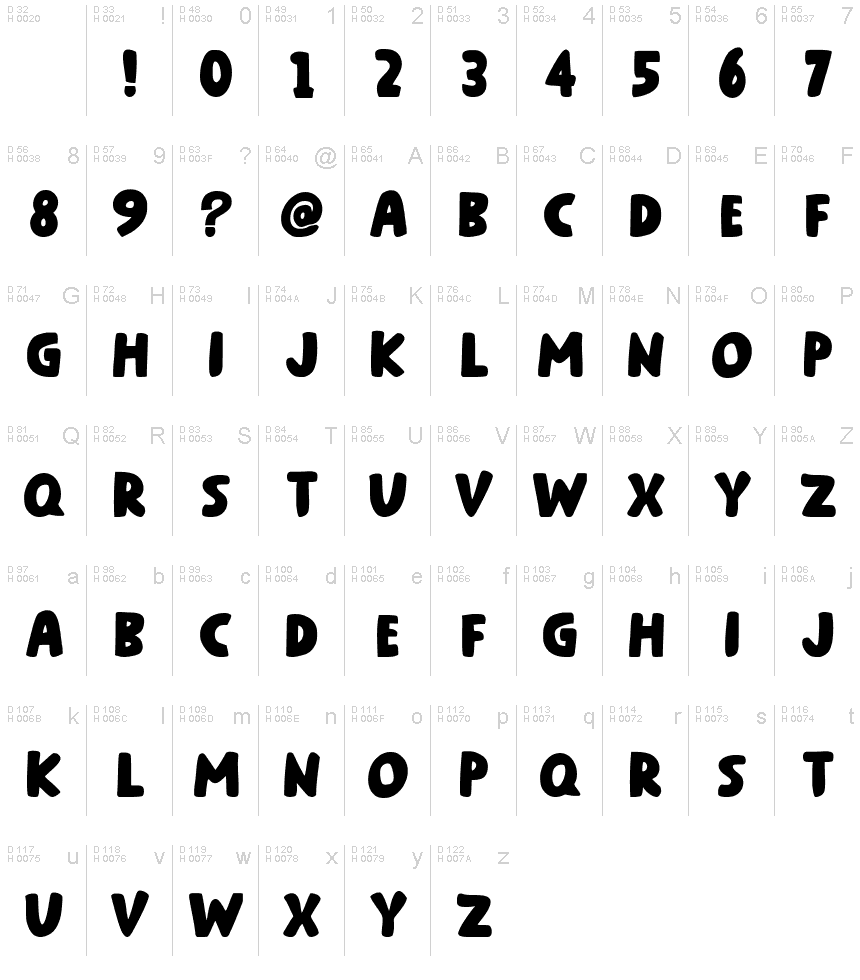
Funnymermaid Regular
Funnymermaid is a bold, cartoon display font designed by Novita Maria. It is perfect for projects that require a cheerful and lighthearted touch, such as children's books, comics, posters and logos.